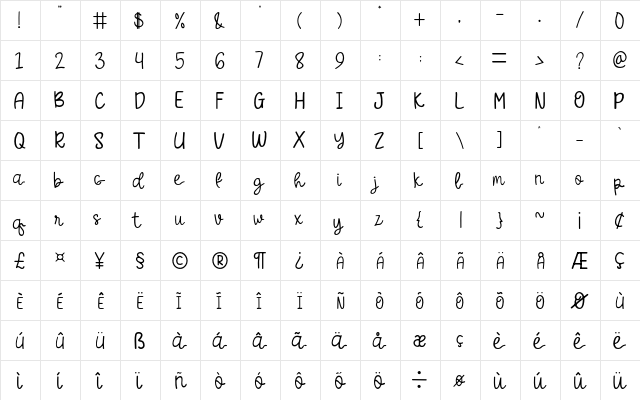
Yagami Light Regular
Design Context for Yagami Light Typeface
Yagami Light takes a measured approach to typography — its balanced proportions and neutral character make it a reliable workhorse for both digital and print work. Its slender proportions lend an understated elegance to any composition.